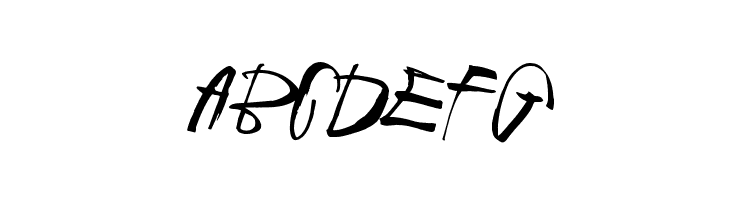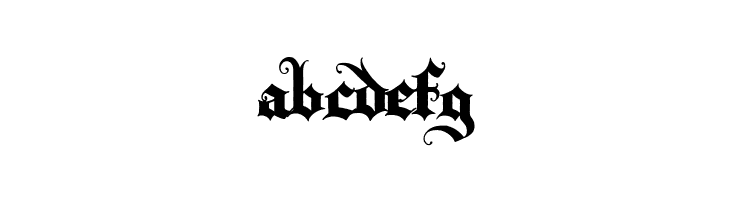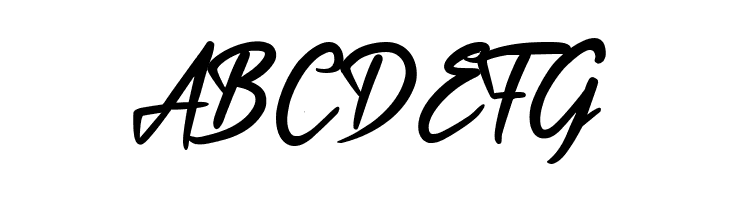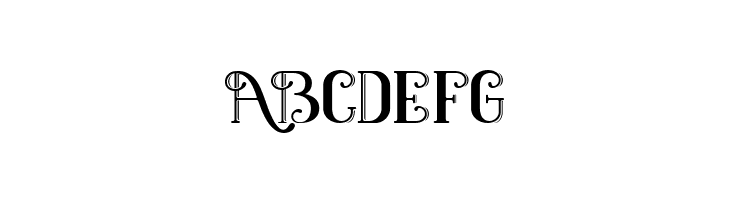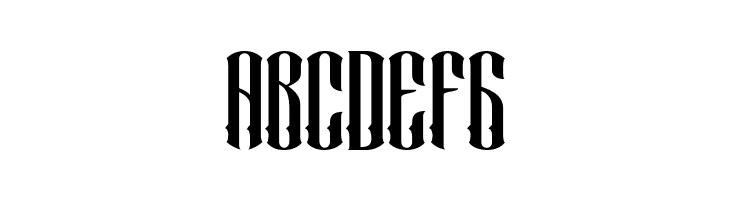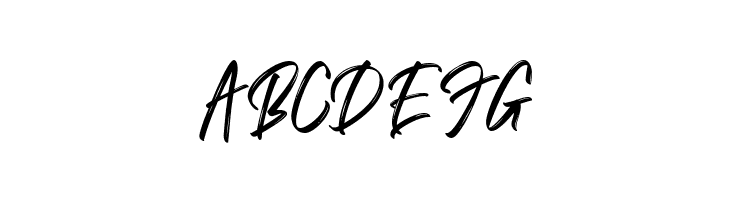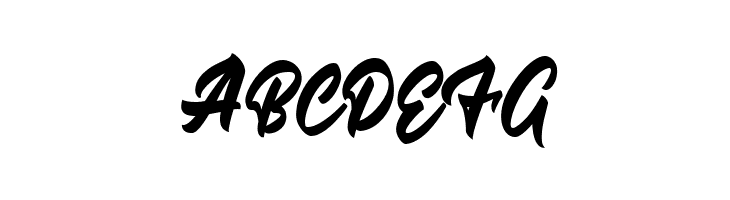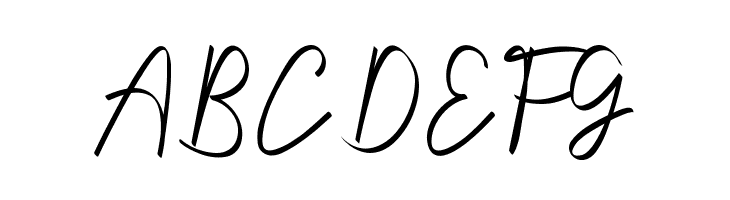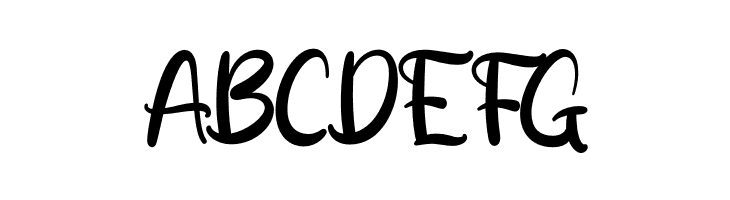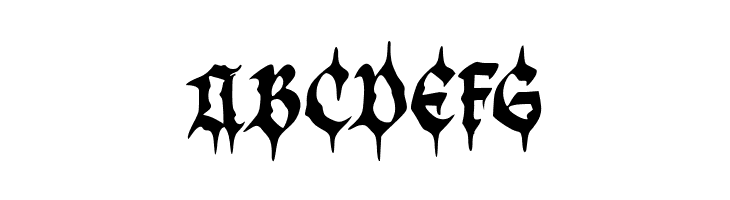
A bold, geometric font with a futuristic and modern aesthetic.
A graceful, handwritten script font with elegant, flowing strokes.
A playful, hand-drawn font with a bold, whimsical style.
A playful, handwritten font with a casual and friendly appearance.
A bold, jagged font with an edgy, chaotic design ideal for dramatic themes.
A playful, handwritten font with bold, rounded strokes and a lively appearance.
A playful, handwritten font with bold, rounded characters and a casual style.
A playful, handwritten font with dynamic curves and decorative elements.
A bold, cursive script font with a modern, energetic style.
A bold, rounded font with a strong and friendly appearance.
A bold, gothic font with sharp, thorn-like edges and a dramatic style.
An ornate and decorative font with intricate swirls and flourishes.
A bold, expressive handwritten font with smooth, flowing curves.
A playful, handwritten-style font with bold, consistent strokes.
A bold, playful font with a shadow effect for added depth.
A graceful and elegant script font with a natural, handwritten style.
A textured, crayon-like font with a playful and artistic style.
A bold, brush-style font with dynamic, hand-drawn characters.
A bold, expressive font with a hand-drawn, brush-like style.
A bold, thorny, and intricate decorative font with a gothic and edgy style.
A bold, gothic font with sharp, pointed edges and a medieval aesthetic.
A bold, dynamic script font with flowing, cursive strokes.
A bold, flowing script font with elegant, cursive letterforms.
A bold, brush-style font with dynamic, irregular strokes.
A dynamic and expressive script font with fluid, energetic strokes.
An ornate blackletter font with intricate, medieval-inspired design.
Outlined, geometric display font with a bold, technical look.
A bold, playful, and irregular hand-drawn display font.
( Fonts by Rochadi Sudarma [Rochart Studio] - Personal-use only. For commercial use please contact owner. )
A bold, brush-style font with a dynamic, hand-painted appearance.
An intricate, chaotic font with overlapping loops and lines, ideal for creative projects.
A bold, distressed font with a rugged, vintage appearance.
( Fonts by da_only_aan - Personal-use only. For commercial use please contact owner. )
A bold, decorative font with a forest silhouette integrated into each character.
A bold, modern font with thick strokes and wide spacing, perfect for headlines.
A bold, cursive script font with a modern and expressive style.
A playful, hand-drawn font with bold outlines and a whimsical style.